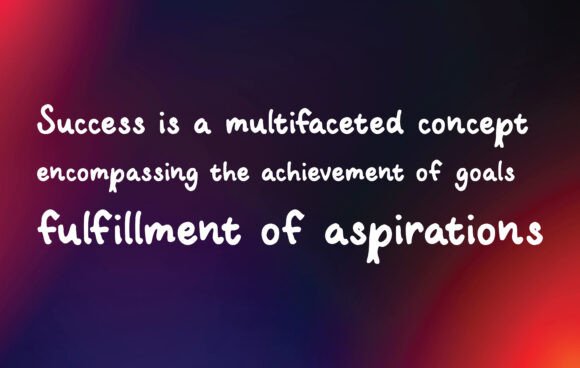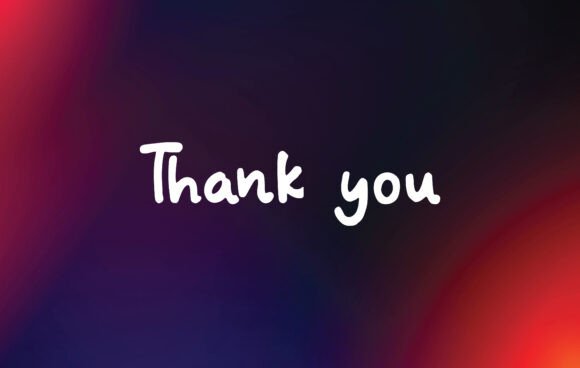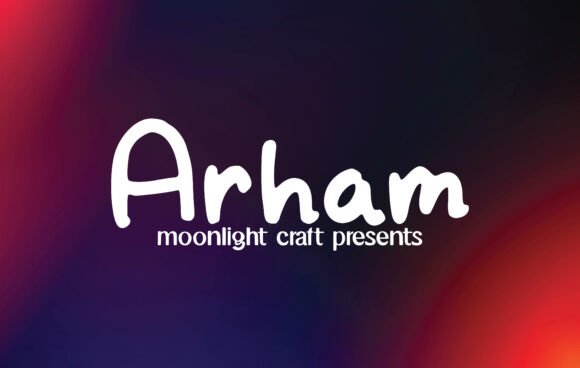
Discover the Beauty of Arham Font: Elevate Your Designs with this Lovely Handwritten Font
Are you a designer or crafter looking for a font that can take your creative ideas to the next level? Look no further than Arham Font, a stunning handwritten font that is sure to capture your audience’s attention. In this article, we’ll explore the features and benefits of Arham Font, and why it’s the perfect choice for creating eye-catching logos, branding, and quotes.
What is Arham Font?
Arham Font is a beautiful handwritten font that exudes elegance and sophistication. Its unique and flowing script makes it perfect for a wide range of design projects, from logos and branding to quotes and social media graphics. With its lovely and delicate strokes, Arham Font is sure to add a touch of personality and style to any design.
Features of Arham Font
So, what makes Arham Font so special? Here are just a few of its key features:
• Unique and Handwritten: Arham Font is a truly unique and handwritten font, making it perfect for designs that require a personal touch.
• Elegant and Sophisticated: With its flowing script and delicate strokes, Arham Font exudes elegance and sophistication.
• Versatile: Arham Font is perfect for a wide range of design projects, from logos and branding to quotes and social media graphics.
• Easy to Read: Despite its elegant and cursive nature, Arham Font is easy to read and understand, making it perfect for designs that require clear communication.
Benefits of Using Arham Font
So, why should you choose Arham Font for your design projects? Here are just a few benefits of using this lovely font:
• Stand Out from the Crowd: With its unique and handwritten script, Arham Font is sure to make your designs stand out from the crowd.
• Add a Personal Touch: Arham Font’s elegant and sophisticated nature makes it perfect for designs that require a personal touch.
• Increase Engagement: With its easy-to-read and visually appealing script, Arham Font is sure to increase engagement and capture your audience’s attention.
• Perfect for Branding: Arham Font’s unique and memorable script makes it perfect for branding and logo design.
How to Use Arham Font in Your Designs
Using Arham Font in your designs is easy! Here are a few tips to get you started:
• Pair with Other Fonts: Arham Font pairs perfectly with other fonts, such as sans-serif fonts, to create a unique and visually appealing design.
• Use for Headings and Titles: Arham Font is perfect for headings and titles, adding a touch of elegance and sophistication to your designs.
• Add to Logos and Branding: Arham Font’s unique and memorable script makes it perfect for logos and branding.
• Experiment with Colors: Arham Font looks great in a variety of colors, so don’t be afraid to experiment and find the perfect hue for your design.
In conclusion, Arham Font is a lovely and beautiful handwritten font that is sure to take your creative ideas to the highest level. With its unique and elegant script, Arham Font is perfect for creating eye-catching logos, branding, and quotes. Whether you’re a designer or crafter, Arham Font is a must-have font in your collection. So why wait? Download Arham Font today and start elevating your designs!